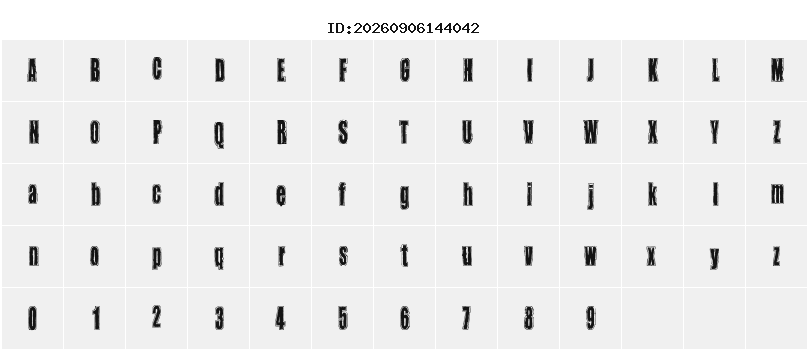
Takapiru2 Preview
• Font Name: Takapiru2
• Full Font Name: Takapiru2
• Version: Version 1.00 April 24, 2014, initial release
About Takapiru2.ttf
Takapiru2.ttf is a modern, elegant sans-serif font designed for ultimate readability and visual harmony. Perfect for branding, headlines, web design, and print materials.